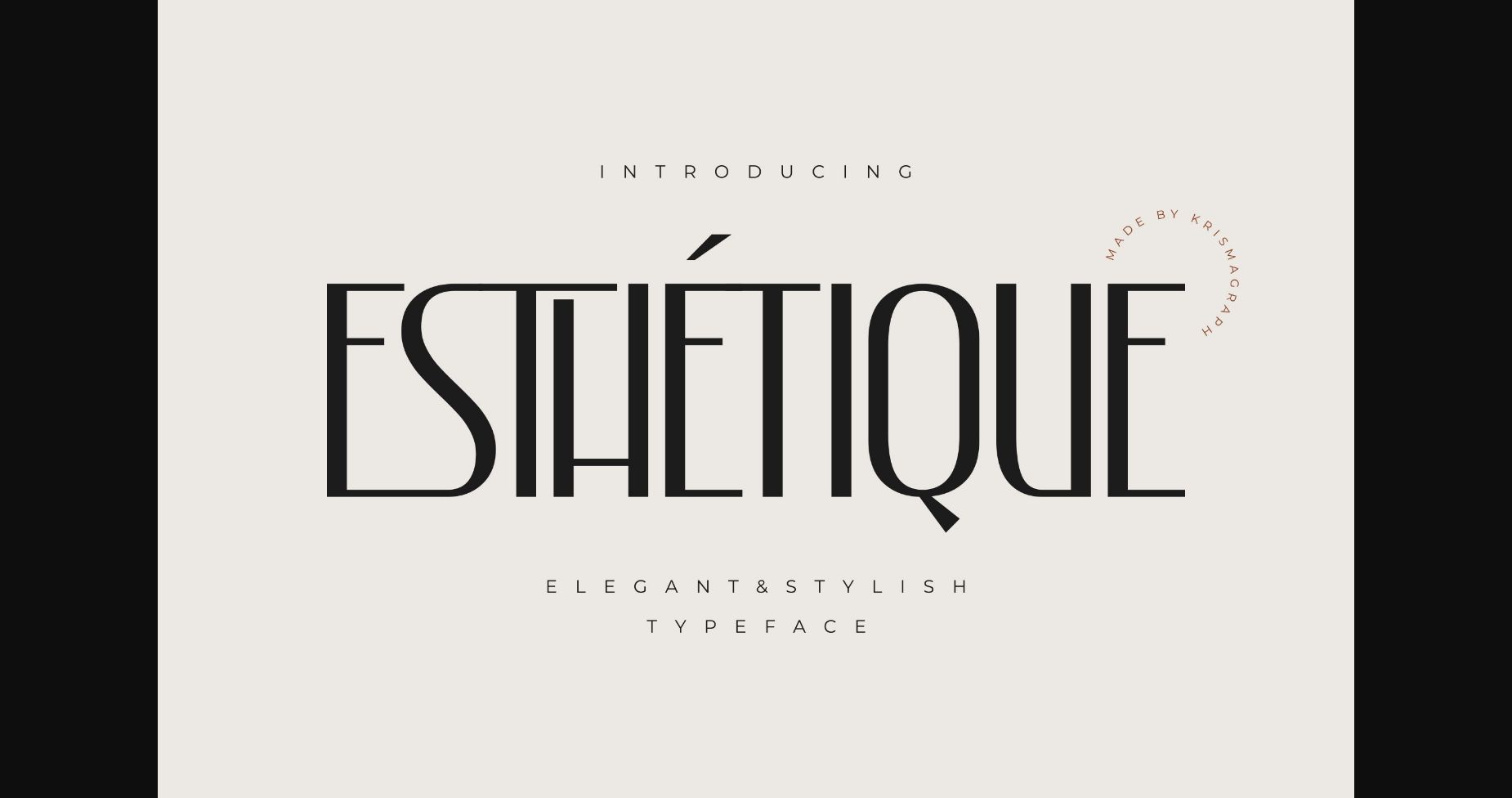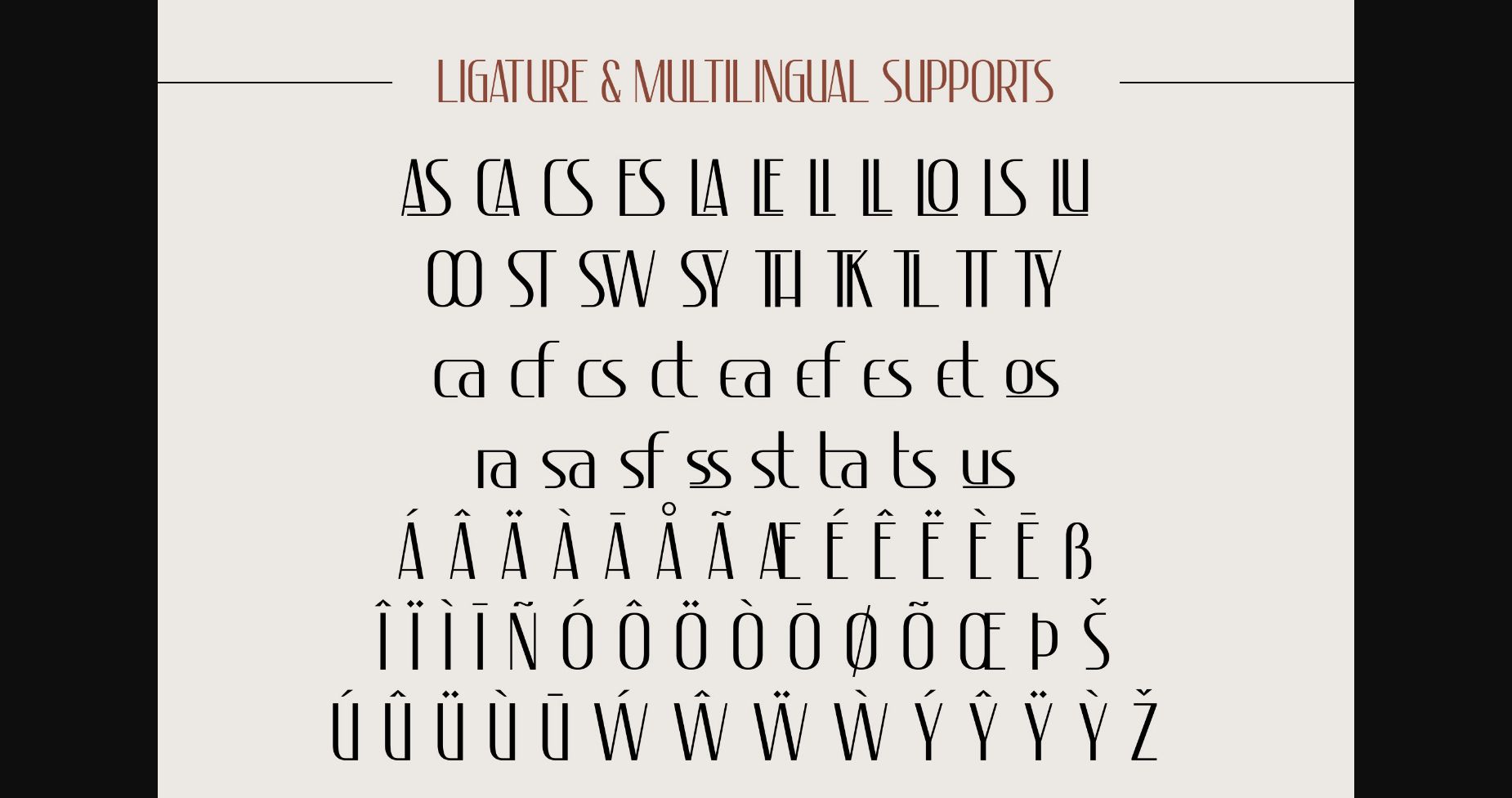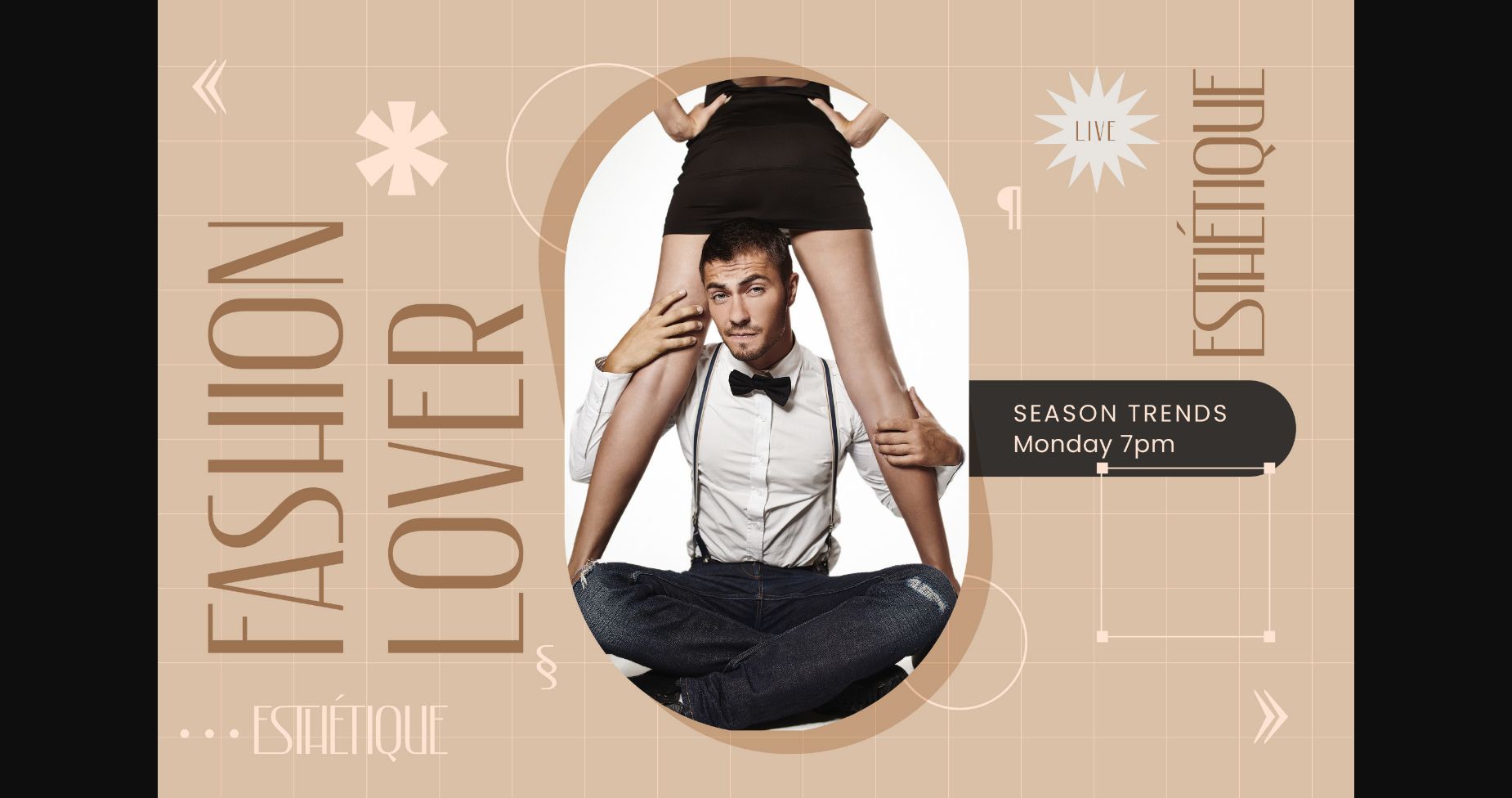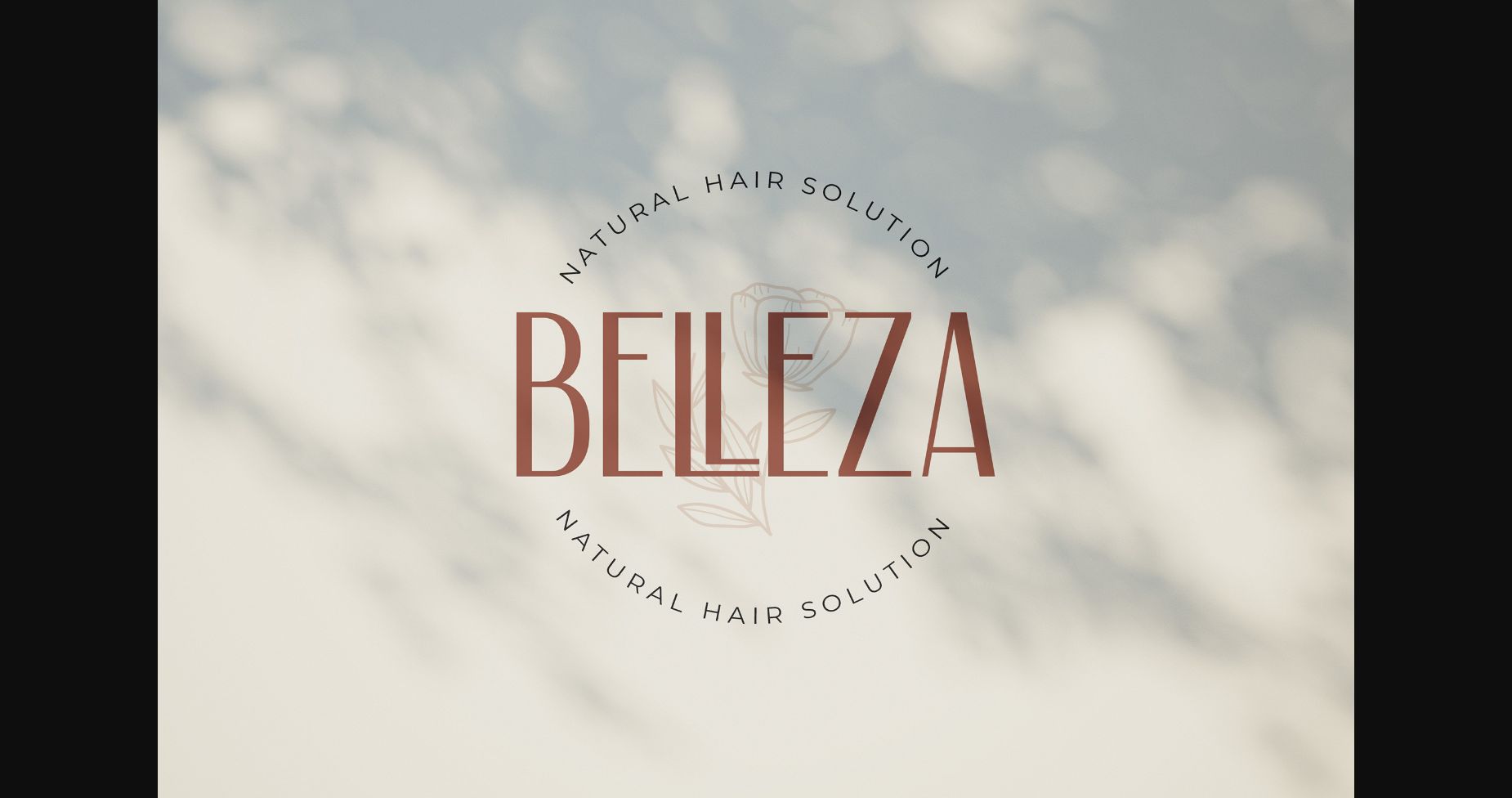
About Eshetique Font
Esthetique is an elegant and stylish sans serif font with unique and classy characters. It works great for logos, magazines, social media, and others. It is the right fit for creative projects that need a touch of elegance, style, class, and modernity.